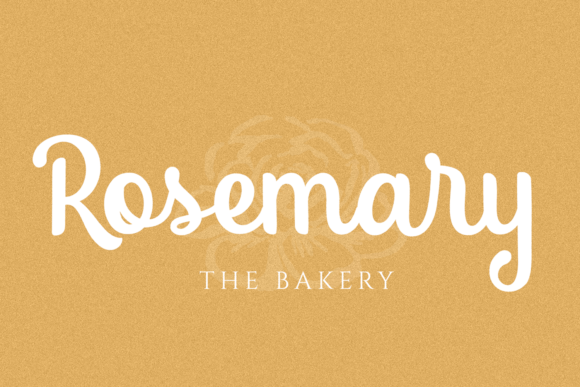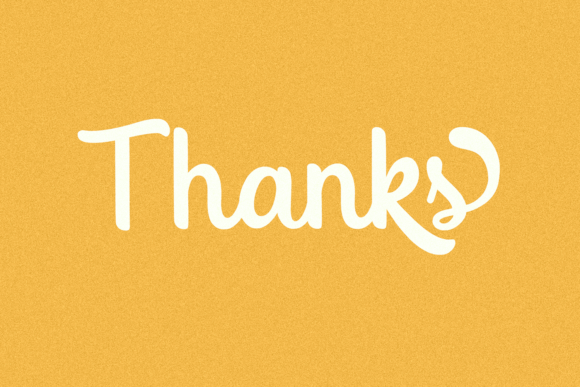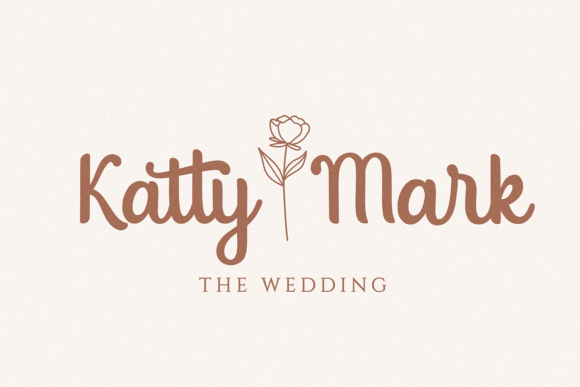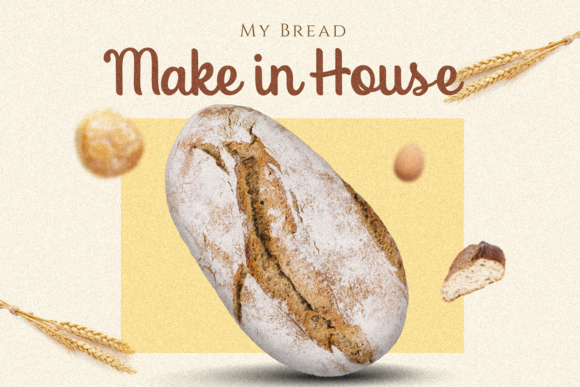
About Cristiane Font
Cristiane is inspired by classic typography and brings its own unique style to any design project.
Its casual charm makes it appear wonderfully down-to-earth, readable and, ultimately, incredibly versatile.